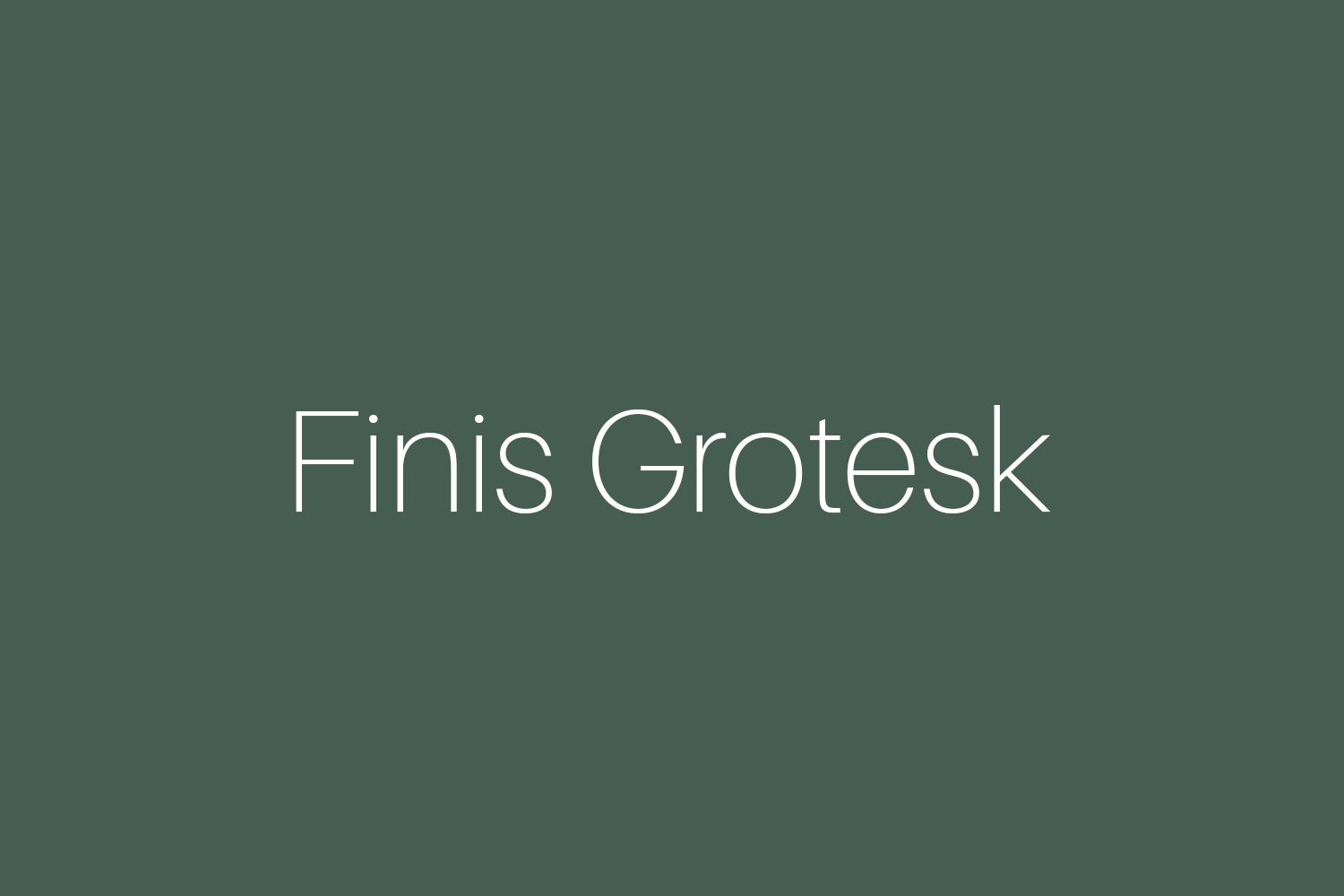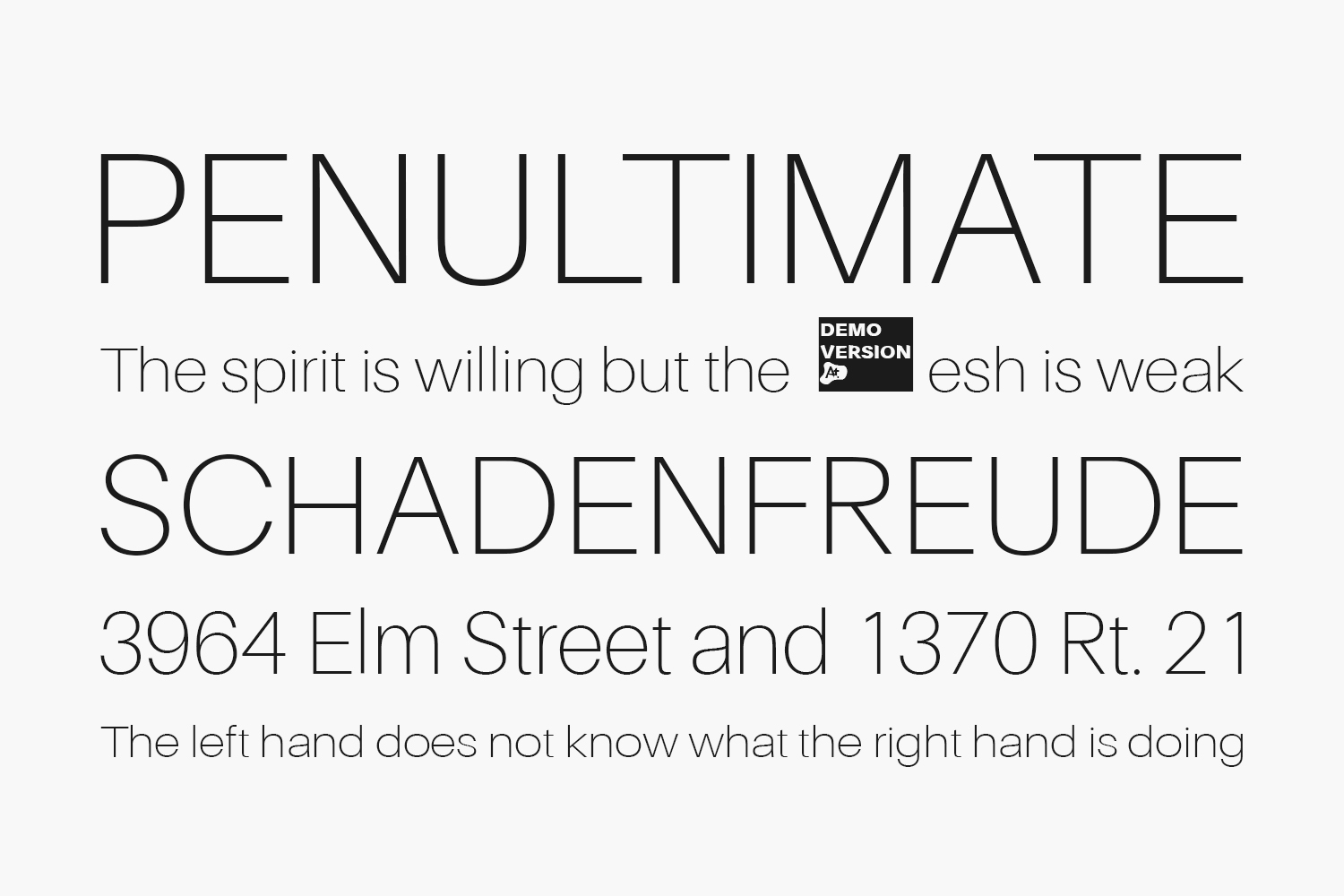
Finis Grotesk Free Font is a neo-grotesque font family with 14+ styles inspired by the Bauhaus Movement. Finis Grotesk Free Font is a demo and free for personal use only. Please purchase the full version for commercial use.
Designed by Alvotype